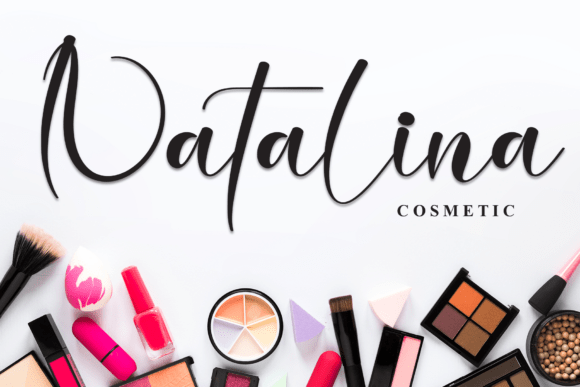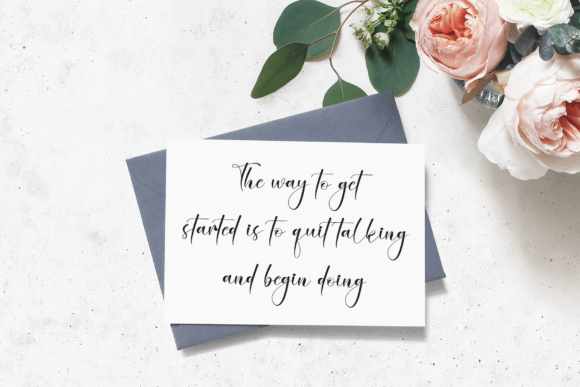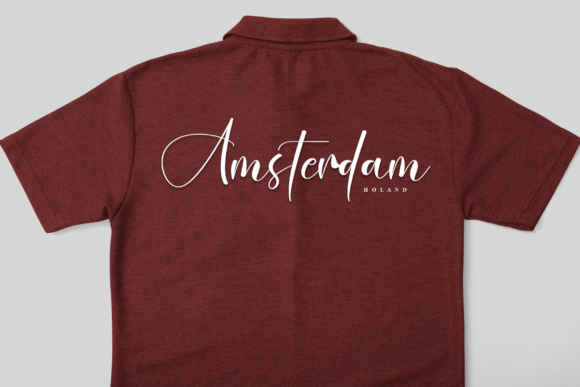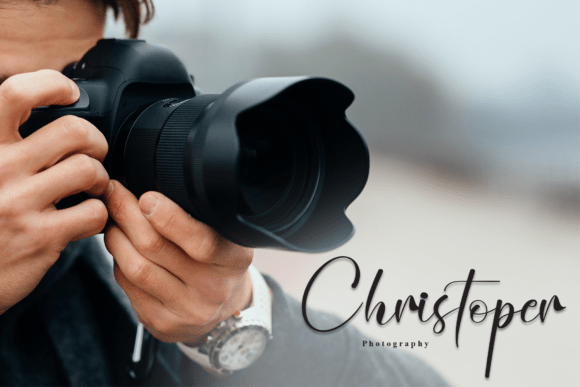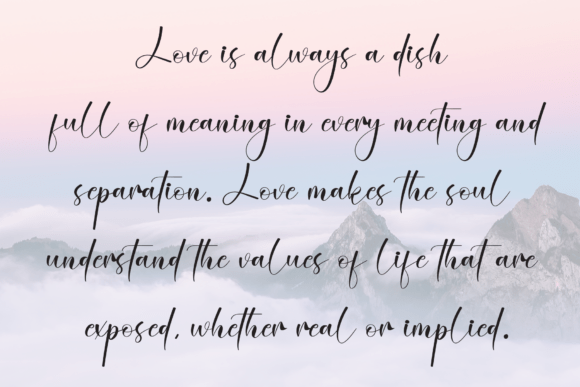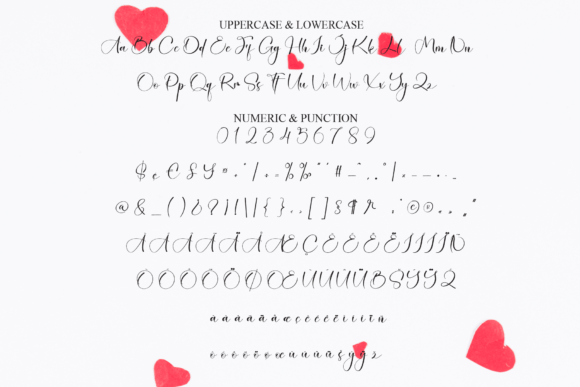
Hearth Font: Elevate Your Designs with Elegance and Sophistication
In the world of typography, a well-crafted font can make all the difference in transforming a design from ordinary to extraordinary. Introducing Hearth Font, a stylish script handwritten font that embodies elegance, sophistication, and a touch of warmth. With its elegant curves and natural flow, Hearth Font is the perfect addition to any design project, whether you’re a designer, crafter, or simply someone who appreciates the art of beautiful typography.
The Characteristics of Hearth Font
Hearth Font is a script handwritten font that boasts a range of characteristics that set it apart from other fonts. Its elegant curves and natural flow give it a sense of fluidity and movement, making it perfect for designs that require a touch of sophistication and refinement. The font’s handwritten nature also adds a personal touch, making it suitable for designs that require a more human and approachable feel.
Perfect for a Range of Design Applications
One of the key benefits of Hearth Font is its versatility. Its elegant and sophisticated design makes it perfect for a range of applications, including:
- Branding: Use Hearth Font to create a lasting impression with your brand’s identity. Its unique and stylish design will help your brand stand out from the crowd and establish a strong visual presence.
- Invitations: Whether you’re planning a wedding, birthday party, or other special occasion, Hearth Font is the perfect choice for creating beautiful and elegant invitations that will set the tone for your event.
- Logos: Create a professional and sophisticated logo with Hearth Font. Its elegant design and natural flow make it perfect for businesses that want to establish a strong and memorable brand identity.
- Greeting Cards: Add a personal touch to your greeting cards with Hearth Font. Its handwritten nature and elegant curves make it perfect for creating heartfelt and sincere messages.
- Social Media Posts: Use Hearth Font to add a touch of elegance and sophistication to your social media posts. Its unique design and natural flow make it perfect for creating engaging and shareable content.
Why Choose Hearth Font?
With so many fonts to choose from, why should you choose Hearth Font? Here are just a few reasons why Hearth Font stands out from the crowd:
- Unique Design: Hearth Font boasts a unique and stylish design that will add a touch of elegance and sophistication to any design project.
- Versatility: Hearth Font is perfect for a range of design applications, from branding and invitations to logos and social media posts.
- Elegant Curves: The font’s elegant curves and natural flow give it a sense of fluidity and movement, making it perfect for designs that require a touch of sophistication and refinement.
- Handwritten Nature: Hearth Font’s handwritten nature adds a personal touch, making it suitable for designs that require a more human and approachable feel.
Tips for Using Hearth Font
To get the most out of Hearth Font, here are a few tips to keep in mind:
- Use it sparingly: While Hearth Font is perfect for adding a touch of elegance and sophistication to your designs, it’s best to use it sparingly. Use it for headings, titles, or key messages to create a lasting impression.
- Pair it with other fonts: Hearth Font pairs perfectly with other fonts, such as sans-serif fonts or serif fonts. Experiment with different font combinations to find the perfect pairing for your design.
- Experiment with colors: Hearth Font looks stunning in a range of colors, from bold and bright to soft and pastel. Experiment with different colors to find the perfect hue for your design.
In conclusion, Hearth Font is a stylish script handwritten font that embodies elegance, sophistication, and a touch of warmth. With its elegant curves and natural flow, it’s perfect for a range of design applications, from branding and invitations to logos and social media posts. Whether you’re a designer, crafter, or simply someone who appreciates the art of beautiful typography, Hearth Font is a must-have font that will elevate your designs to the next level.